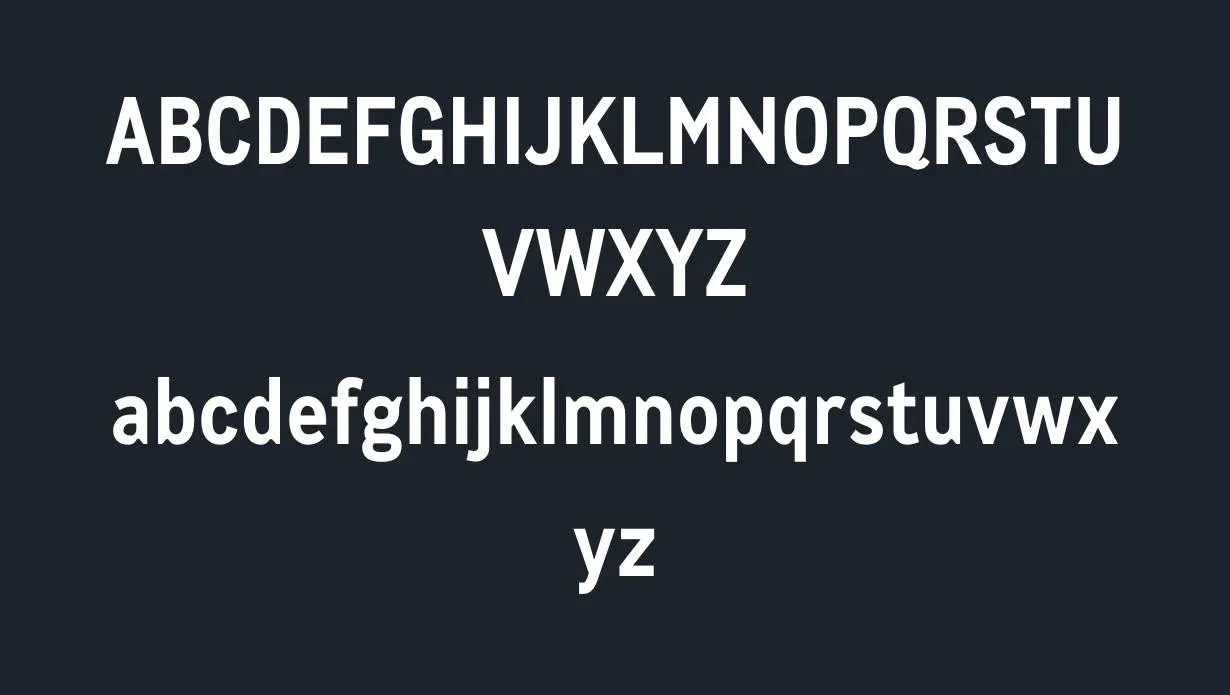
Cula Font offers a clean and modern design with a touch of sophistication. Its straightforward lines make it suitable for various design applications, from branding to web design, where a contemporary and sleek appearance is desired.
| Name | Cula Font |
| Designer | Thomas Schostok |
| Style | Sans-Seirf |